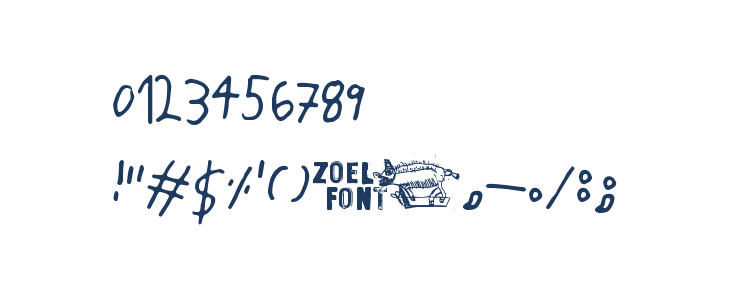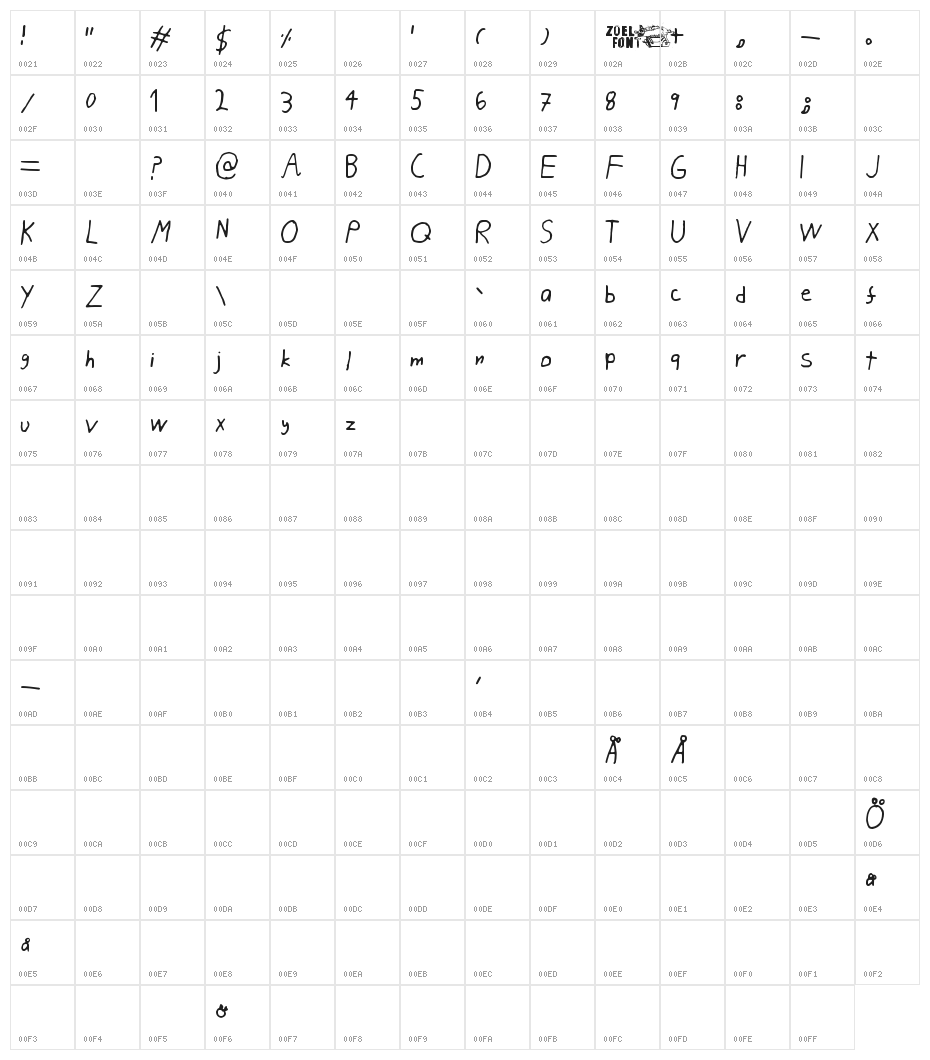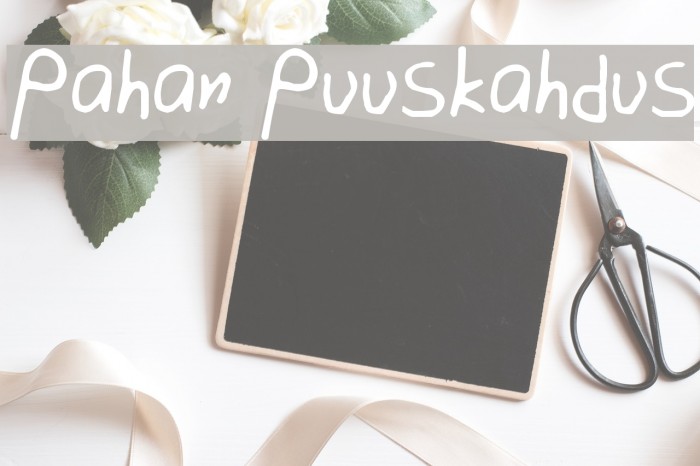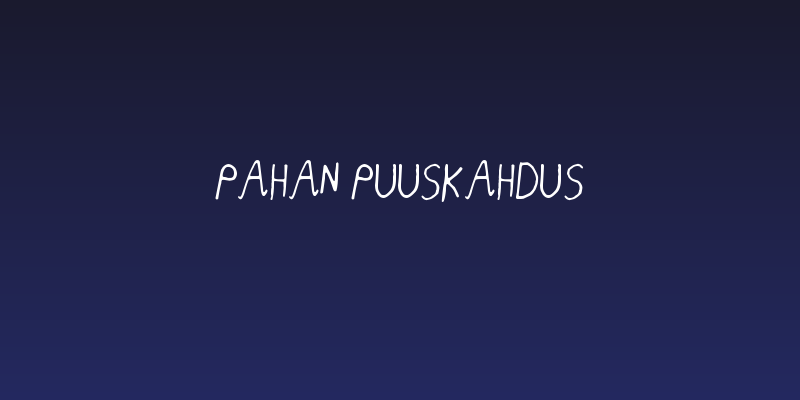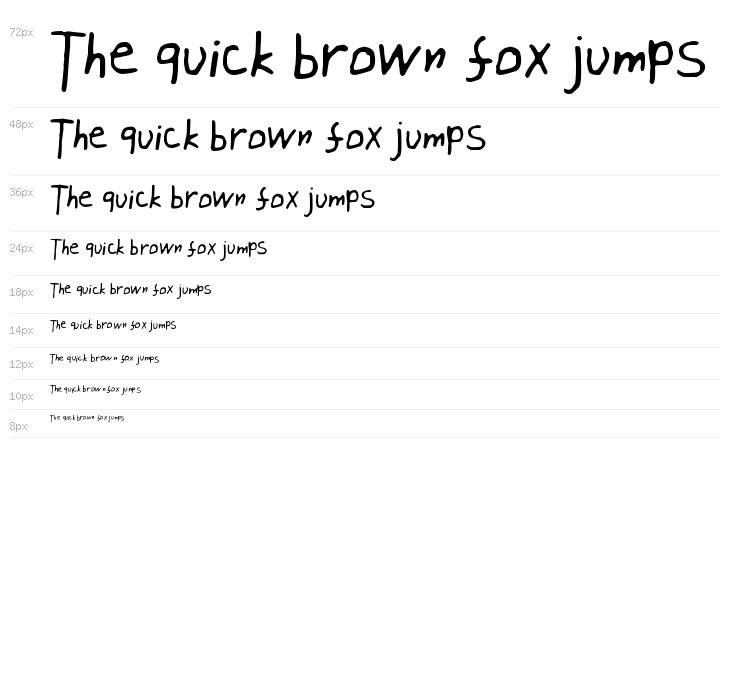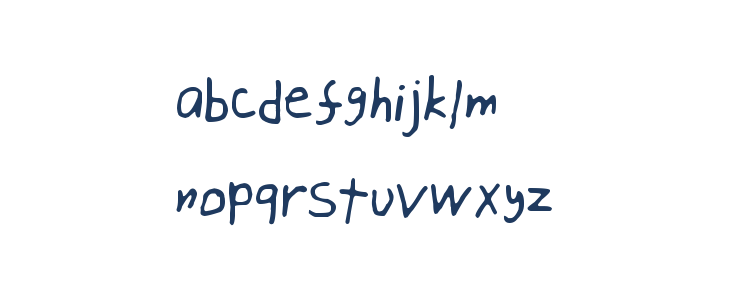
Pahan Puuskahdus Font
Pahan Puuskahdus Description
This font features a playful and casual handwritten style, characterized by its irregular and organic letterforms. The strokes are uneven, giving it a natural and spontaneous appearance, reminiscent of a quick doodle or note. The uppercase and lowercase letters maintain a consistent flow, while the numbers and special characters complement the overall informal aesthetic. This font exudes a sense of creativity and personal touch, making it ideal for projects that require a friendly and approachable vibe.
| Use Case | Logos, Invitations, Personal notes |
| Proposed Projects | Ideal for greeting cards, personal notes, children's books, and creative branding projects. |